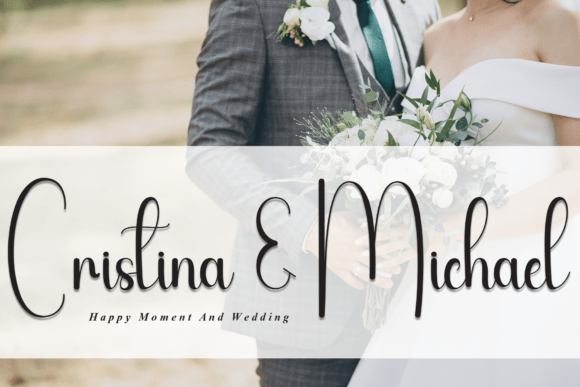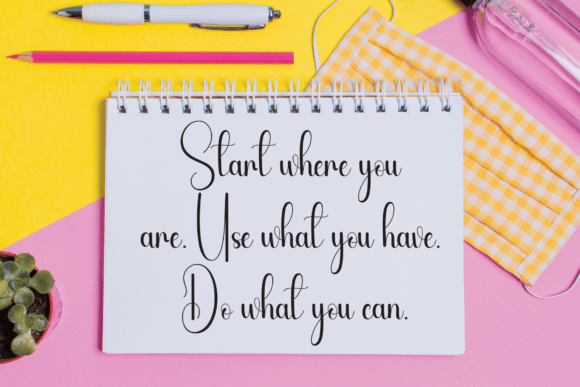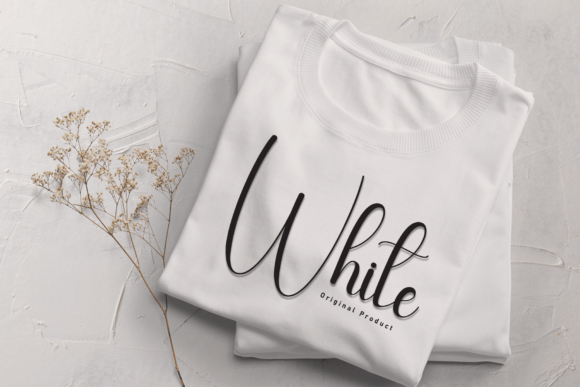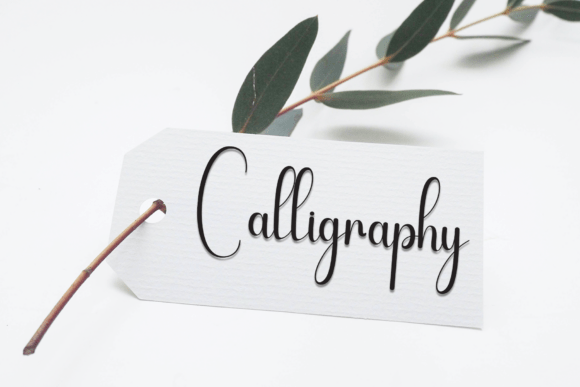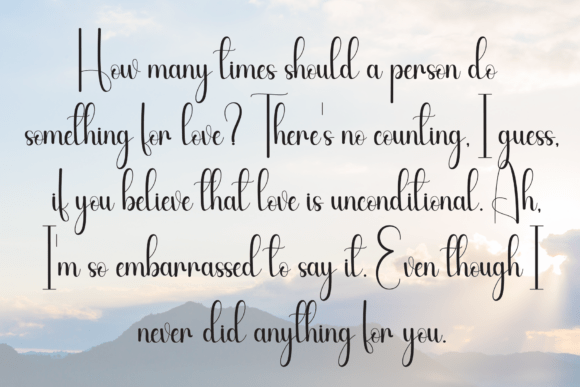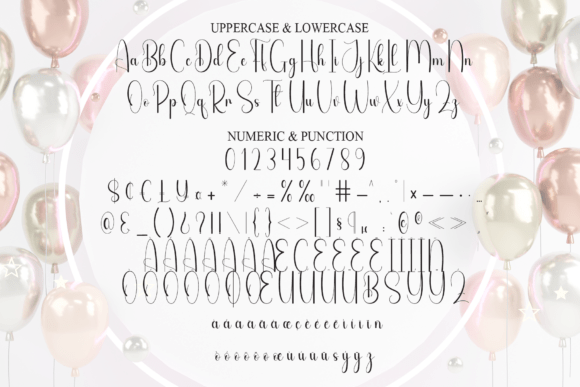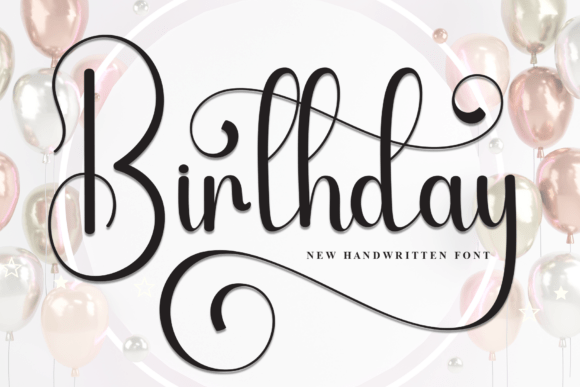
Introducing Birthday Font: The Elegant Handwritten Script for Your Designs
Are you looking for a font that adds a touch of sophistication and elegance to your designs? Look no further than Birthday Font, a stylish handwritten script font that exudes charm and refinement. With its fluid, graceful strokes, Birthday Font is perfect for a variety of design applications, including branding, invitations, and stationery.
The Characteristics of Birthday Font
Birthday Font is a beautifully crafted handwritten script font that boasts smooth curves and a natural flow. Its elegant strokes create a timeless, refined look that is sure to impress. The font’s fluidity and grace make it perfect for designs that require a personal and sophisticated touch. Whether you’re creating a brand identity, designing an invitation, or crafting a piece of stationery, Birthday Font is the perfect choice.
Perfect for Branding
When it comes to branding, the right font can make all the difference. Birthday Font is an excellent choice for brands that want to convey a sense of elegance and sophistication. Its refined look and feel make it perfect for luxury brands, high-end products, and services that require a personal touch. With Birthday Font, you can create a brand identity that is both stylish and memorable.
Ideal for Invitations and Stationery
Invitations and stationery are a great way to make a lasting impression, and Birthday Font is the perfect font to use. Its elegant strokes and smooth curves create a beautiful, refined look that is sure to impress. Whether you’re designing a wedding invitation, a birthday card, or a piece of stationery, Birthday Font is the perfect choice. Its personal and sophisticated touch will make your designs stand out from the crowd.
- Fluid, graceful strokes: Birthday Font features fluid, graceful strokes that create a smooth, refined look.
- Smooth curves and natural flow: The font’s smooth curves and natural flow make it perfect for designs that require a personal and sophisticated touch.
- Elegant and charming: Birthday Font is a stylish handwritten script font that exudes elegance and charm.
- Perfect for branding, invitations, and stationery: The font is ideal for a variety of design applications, including branding, invitations, and stationery.
Tips for Using Birthday Font
Here are a few tips for using Birthday Font in your designs:
- Use it sparingly: Birthday Font is a elegant font that can be overwhelming if used too much. Use it sparingly to create a lasting impression.
- Pair it with a sans-serif font: Pairing Birthday Font with a sans-serif font can create a beautiful contrast that makes your designs stand out.
- Experiment with different colors: Birthday Font looks great in a variety of colors. Experiment with different colors to find the one that works best for your design.
In conclusion, Birthday Font is a stylish handwritten script font that is perfect for designers and crafters who want to add a touch of elegance and sophistication to their designs. Its fluid, graceful strokes and smooth curves create a timeless, refined look that is sure to impress. Whether you’re creating a brand identity, designing an invitation, or crafting a piece of stationery, Birthday Font is the perfect choice.